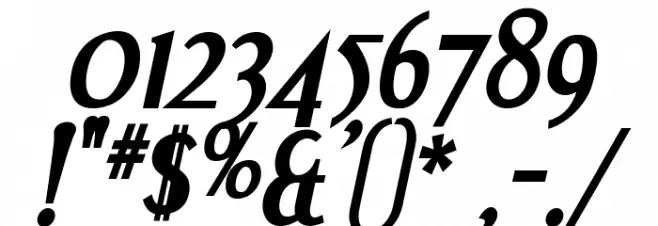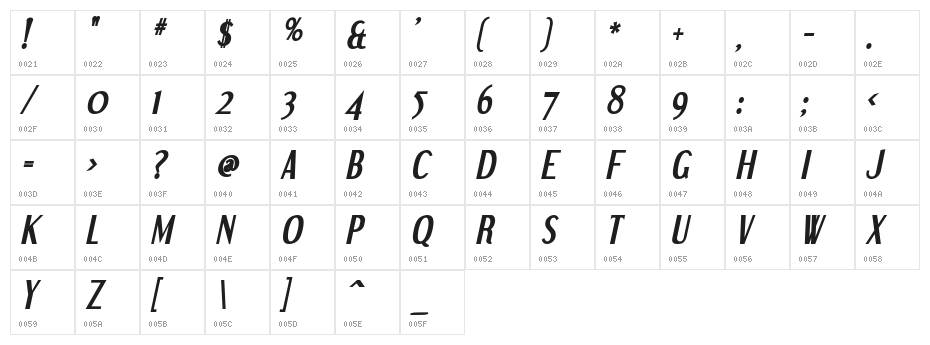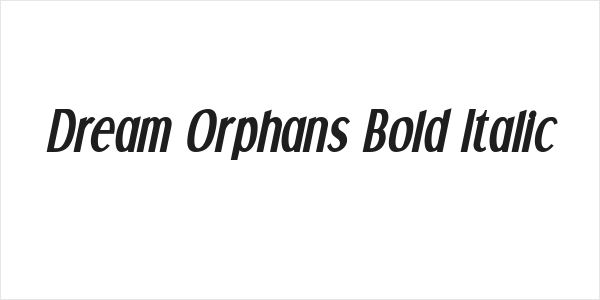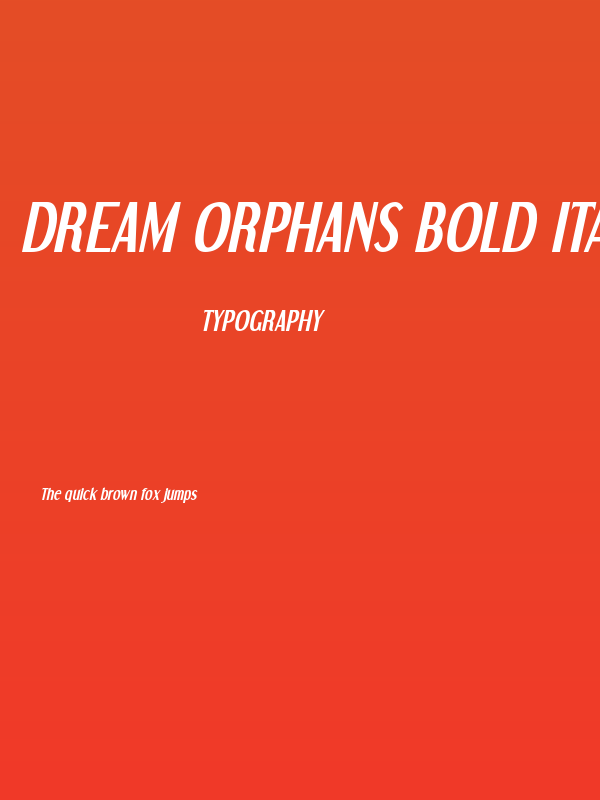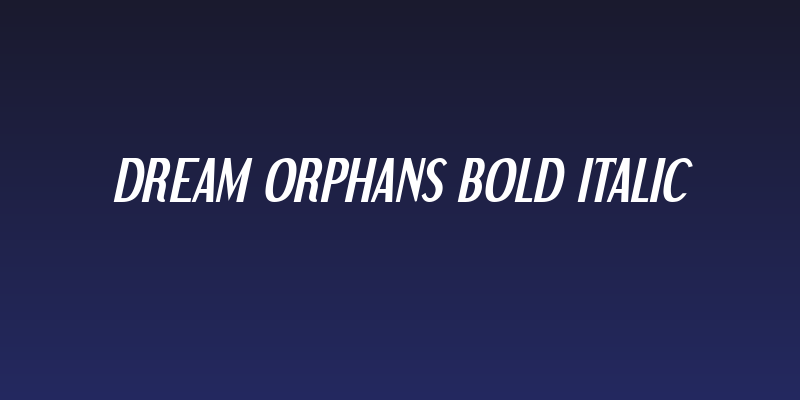
Dream Orphans Bold Italic Font
Dream Orphans Bold Italic Description
This font exhibits a bold and italicized style, characterized by its strong and dynamic presence. The letters are slightly slanted, adding a sense of motion and elegance. The strokes are thick and consistent, providing a robust appearance. The uppercase letters are tall and commanding, while the lowercase letters maintain a harmonious flow. The numbers are clear and easily distinguishable, complementing the overall design. Special characters are well-integrated, maintaining the font's cohesive look. This font is ideal for making a statement with its bold and italic features.
| Use Case | Headlines, Logos, Advertising |
| Proposed Projects | Ideal for branding, advertising, headlines, and any project requiring a bold statement. |